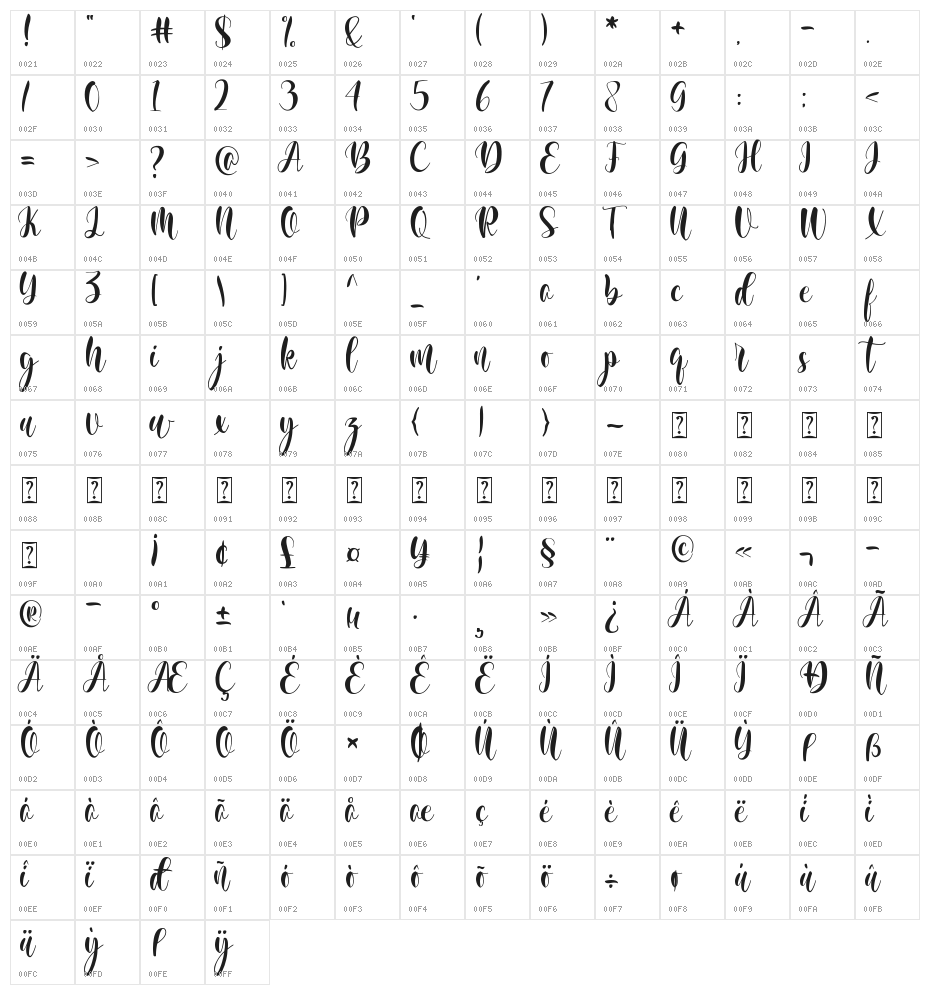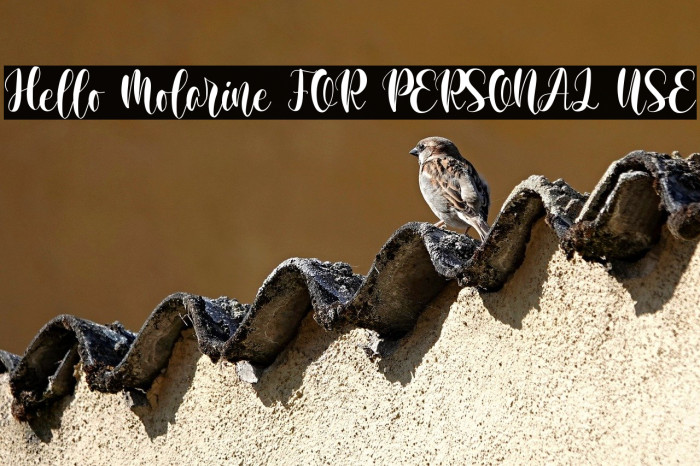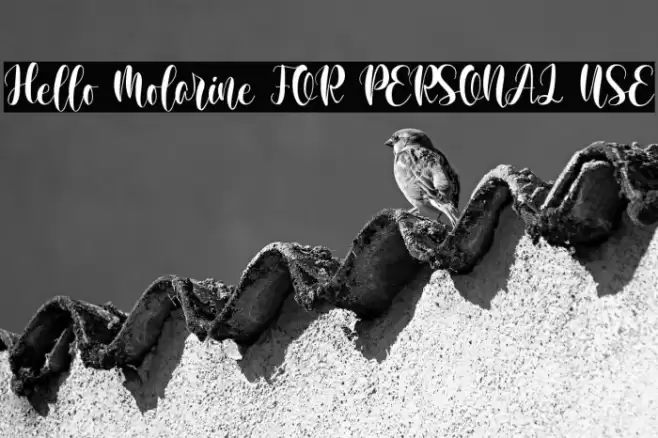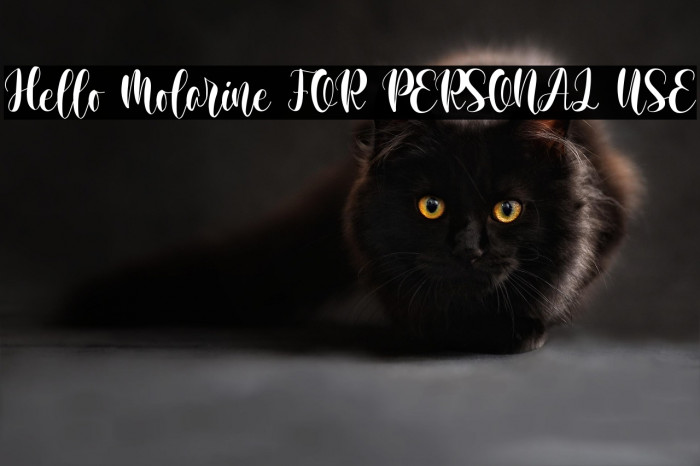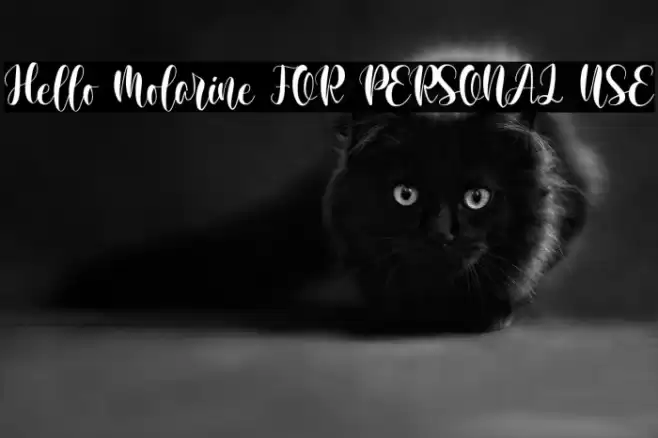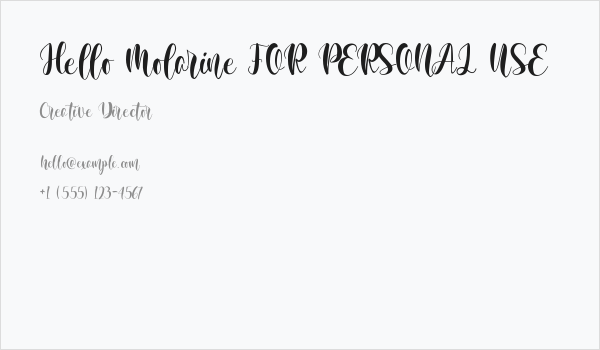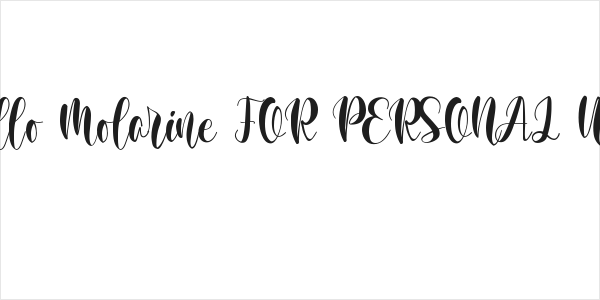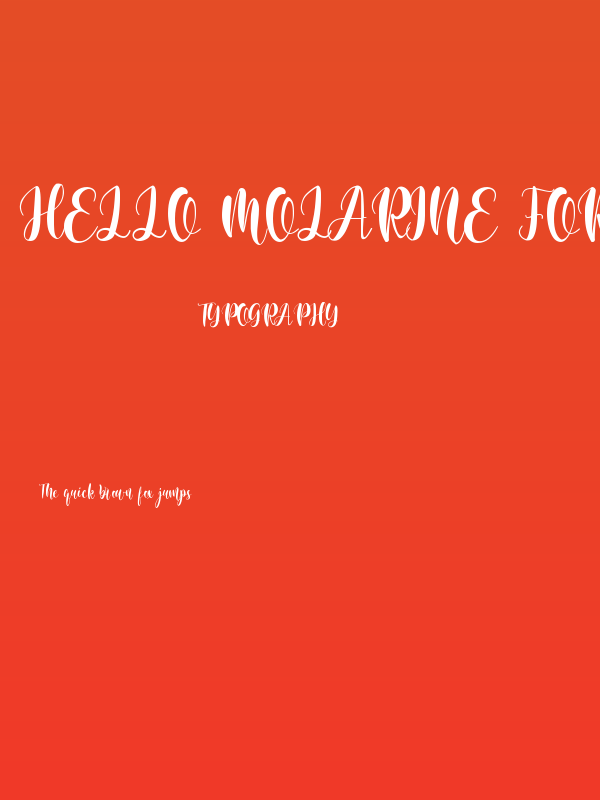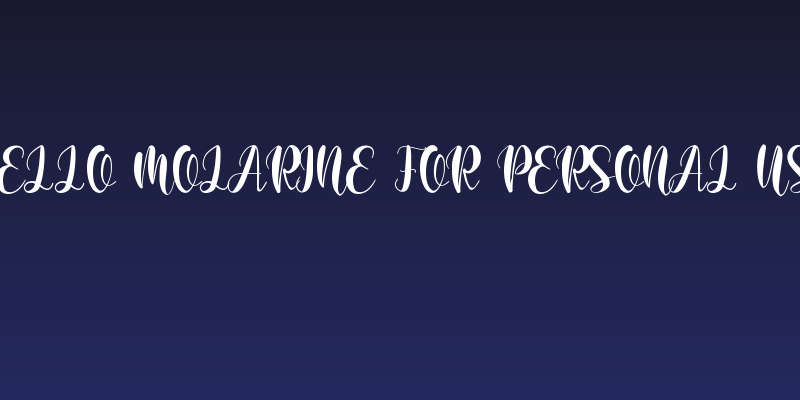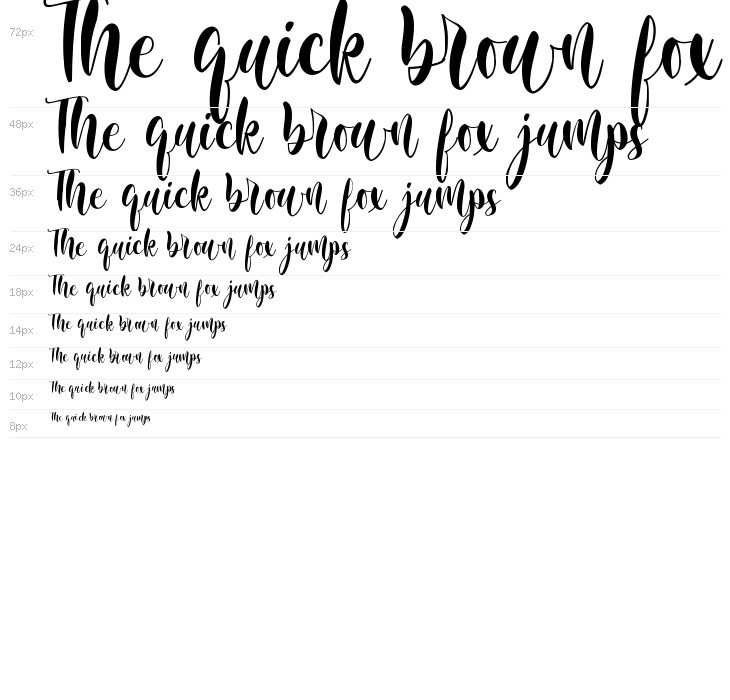
Hello Molarine FOR PERSONAL USE Font
Hello Molarine FOR PERSONAL USE Description
This font features a lively and flowing script style, characterized by its elegant, cursive letterforms. The strokes are smooth and connected, giving it a handwritten appearance. The uppercase letters are bold and expressive, while the lowercase letters maintain a consistent flow, enhancing readability. The numerals and special characters are designed to complement the overall aesthetic, with a playful yet sophisticated touch. This font is ideal for projects that require a personal and artistic flair, such as invitations, greeting cards, and branding materials.
| Proposed Projects | Ideal for invitations, greeting cards, branding, and artistic projects. |